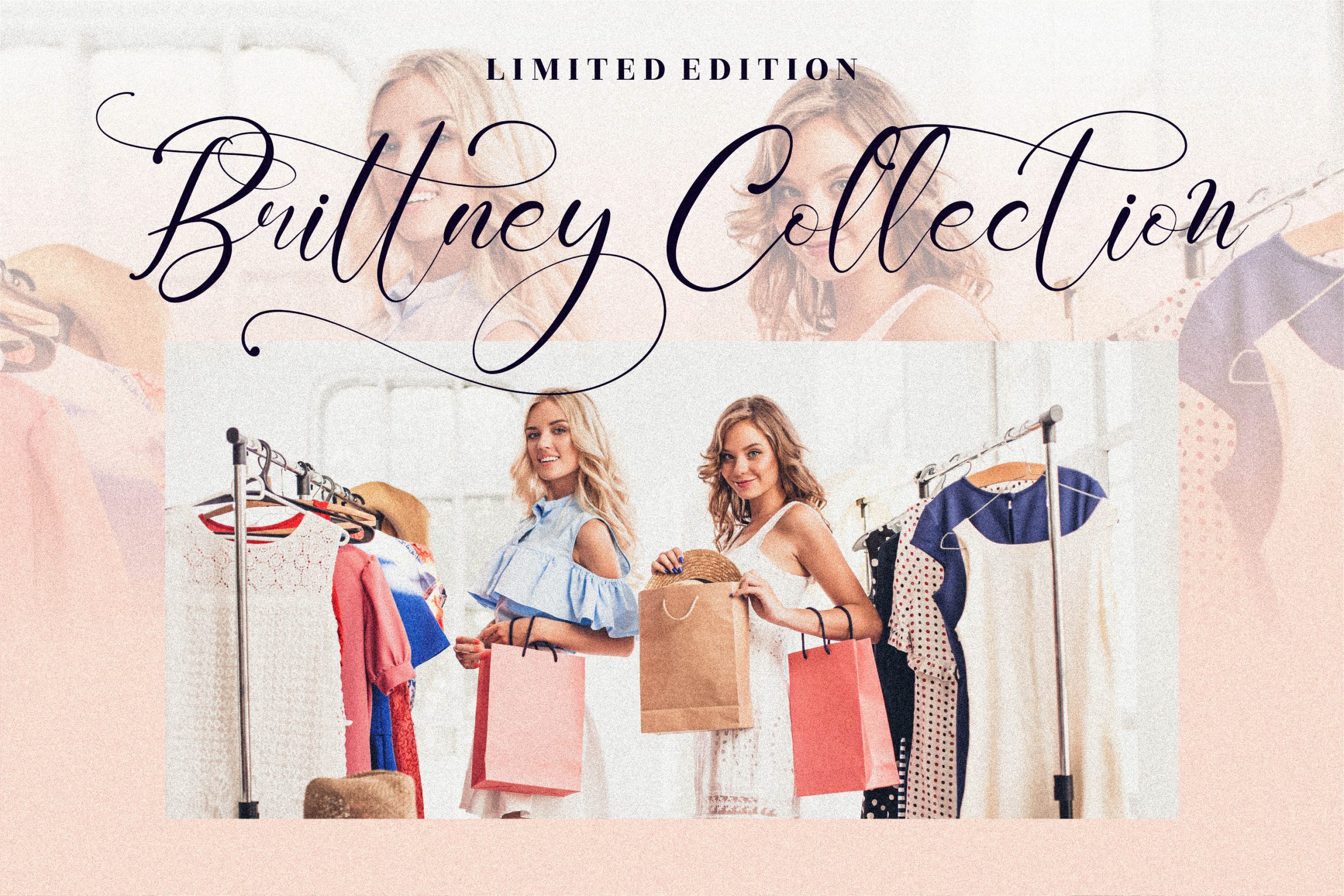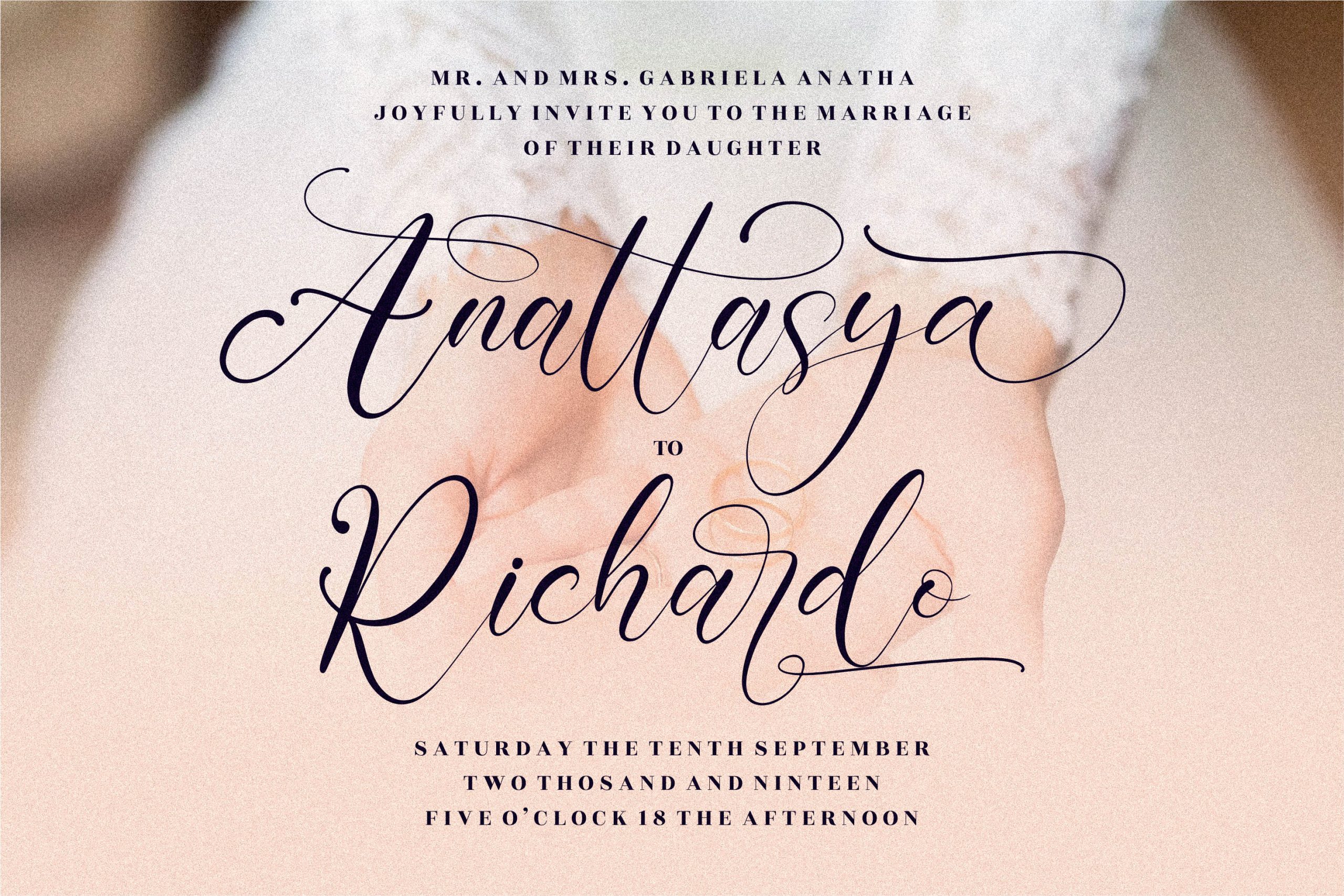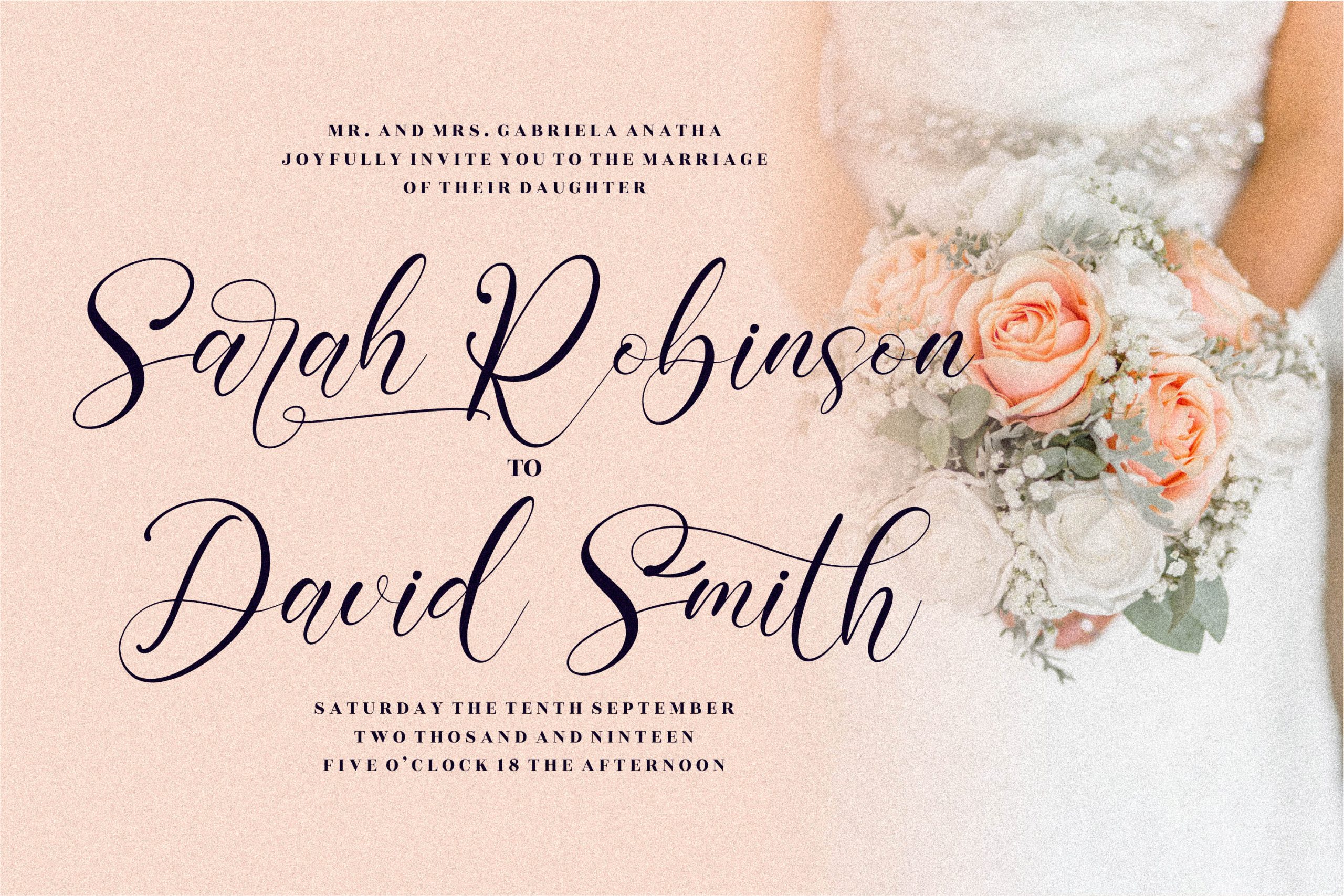
Kalindaty Alintaria Font
Kalindaty Alintaria Calligraphy Font
This is a romantic calligraphy font, suitable for any projects such as: logos, branding projects, homeware designs, product packaging, mugs, quotes, posters, shopping bags, t-shirts, book covers, name card, invitation cards, greeting cards, label, photography, watermark, special events, and all your other lovely projects that need a beautiful script taste.